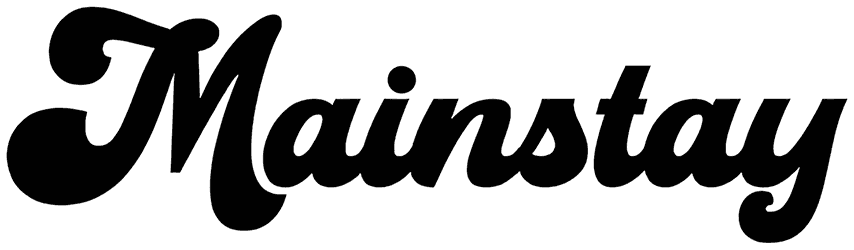
Mainstay Font
Try out Mainstay, a groovy font, to create something likable, appealing, and engaging, and stand out from the crowd among other competitors in the design world when developing games, printing T-shirts, designing cards, and other similar projects. Explore RB to acquire additional knowledge regarding the various fonts that can be found on our website.